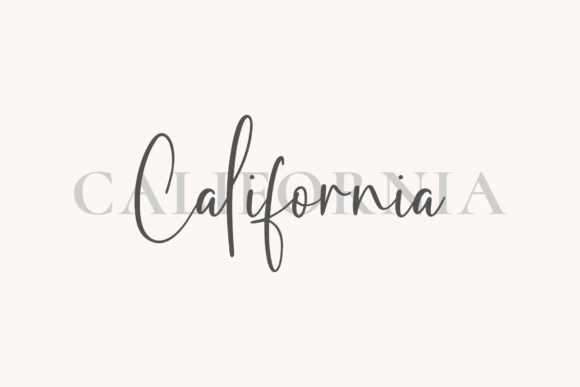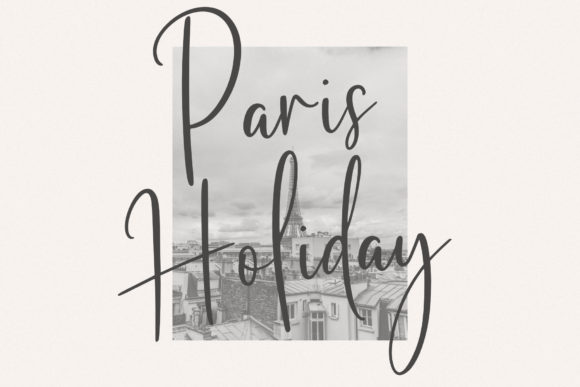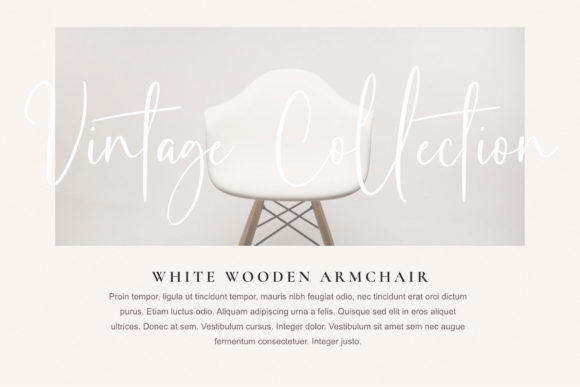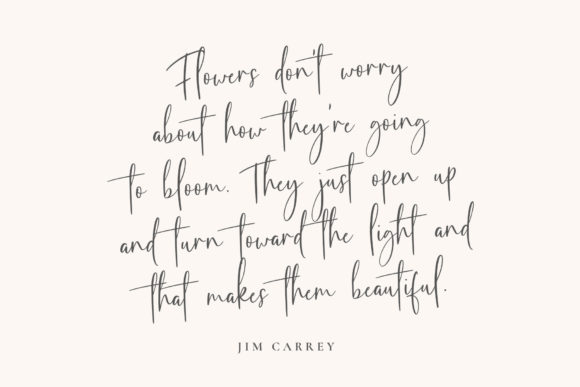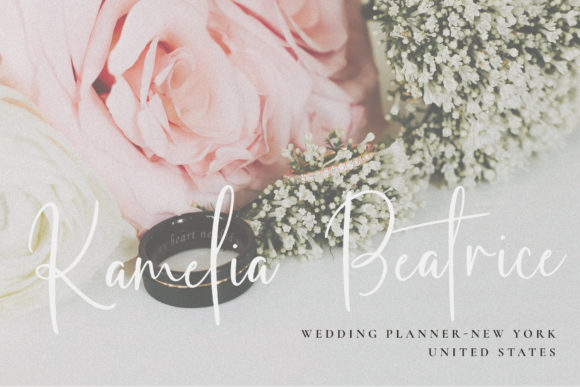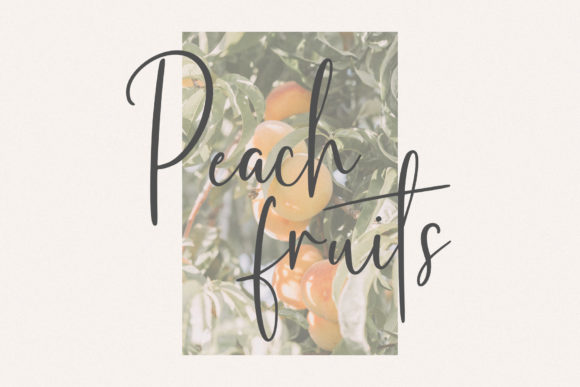
The Frunchy Font: A Modern Script Beauty for Your Creative Projects
I’ll never forget the time I was working on a wedding invitation design project, and I just couldn’t seem to find the perfect font. My client wanted something elegant, yet modern, and I was determined to deliver. That’s when I stumbled upon the Frunchy font, and let me tell you, it was love at first sight! 💕
Frunchy is a lovely modern script font that has quickly become a staple in my design toolkit. Its beautiful, flowing lines and elegant curves make it perfect for a wide range of creative projects, from weddings and social kits to businesses, cards, shirts, logos, watermarks, and web design.
What I Love About Frunchy ✨
- 💫 Elegant and modern design that’s perfect for high-end projects
- 🎉 Extensive character set, including OpenType features and glyphs
- 💪 Versatile and adaptable to various design styles and themes
- ⚠️ Some users may find the font a bit too ornate for very casual or playful projects
- 🤔 Limited availability of certain special characters or diacritics
The Story Behind Frunchy: Designer Inspiration
Frunchy was designed with the goal of creating a beautiful, modern script font that’s both elegant and versatile. Inspired by the flowing lines of handwritten calligraphy, Frunchy is perfect for designers who want to add a touch of sophistication to their projects.
Q: What is Frunchy font best used for?
Frunchy is a versatile font that can be used for a wide range of creative projects, including weddings, social kits, businesses, cards, shirts, logos, watermarks, and web design.
Q: Does Frunchy support OpenType features?
Yes, Frunchy supports OpenType features, including glyphs and stylistic alternates.